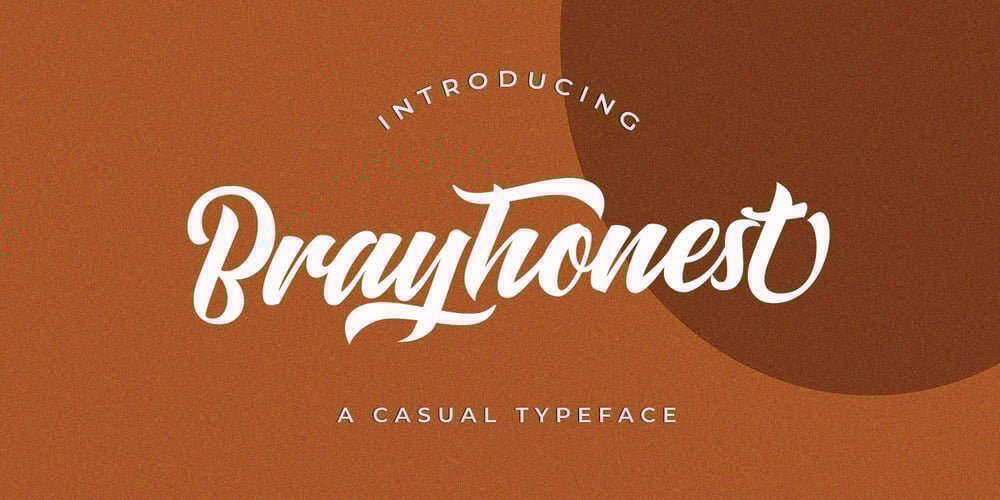
Brayhonest
Brayhonest font
Brayhonest Font Family was designed by Cut Nurfajarlia and published by Alandya TypeFoundry. Brayhonest contains 1 styles and family package options. Brayhonest offers a wide range of options for creating logos, titles and titles. It is suitable for books, editorials, packaging, advertising, brand imaging and more.Brayhonest includes Collection of Uppercase, Stylistic, Latin Based Language Support, Numbers and Punctuation. Set Stylistic is available in Uppercase and Lowercase.Brayhonest is encoded with PUA Unicode, which allows access to all features without special design software. Mac users can use Font Books, and Windows users can use Character Map to view and copy extra characters to paste into your favorite app / text editor.